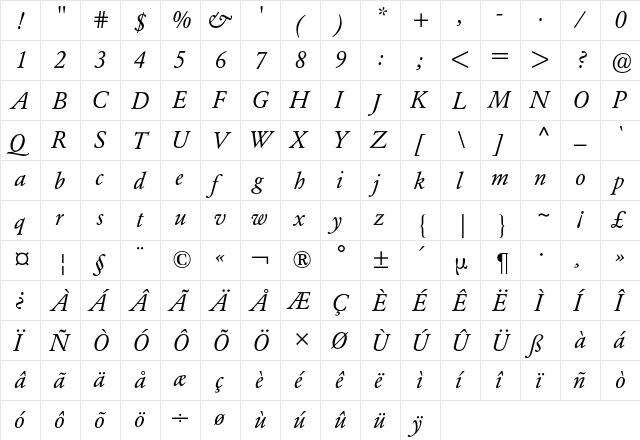
Garamond BQ Regular
Design Context for Garamond BQ Typeface
Garamond BQ is a composed and adaptable typeface that performs quietly and consistently across a wide range of design contexts.